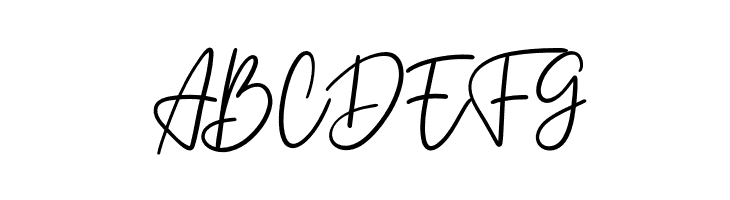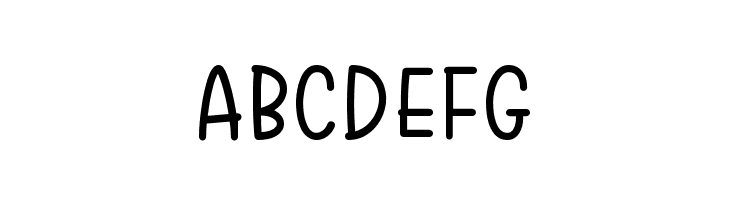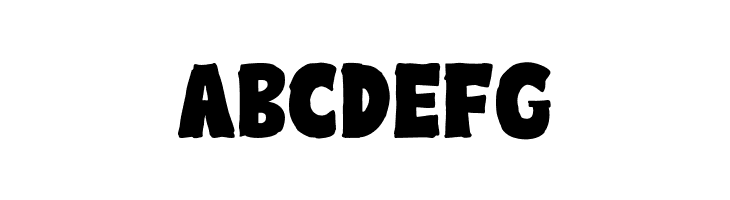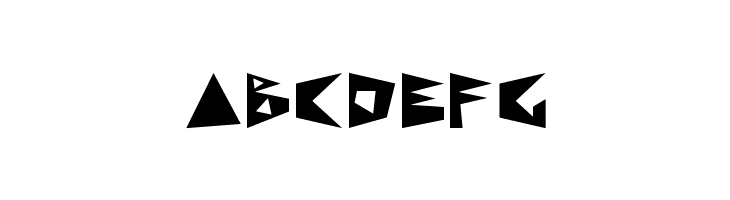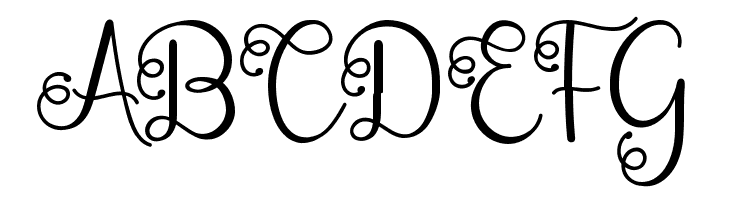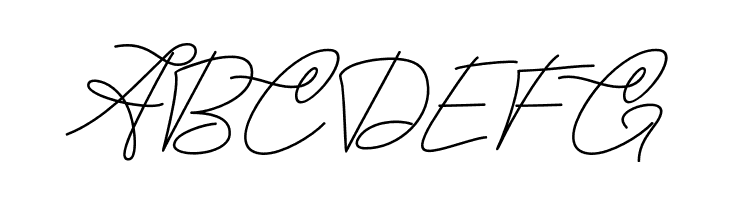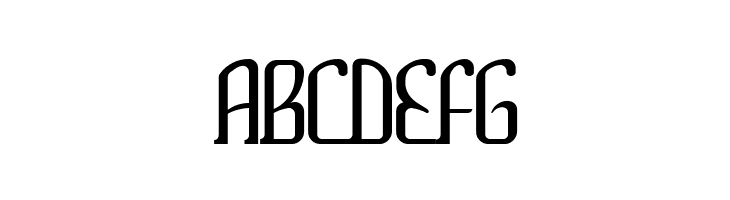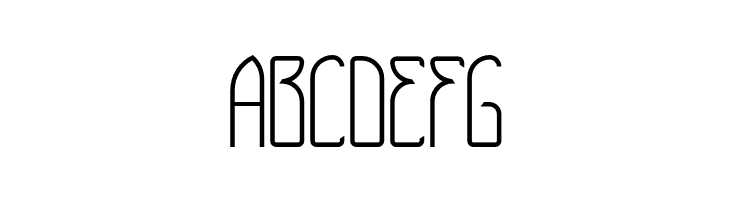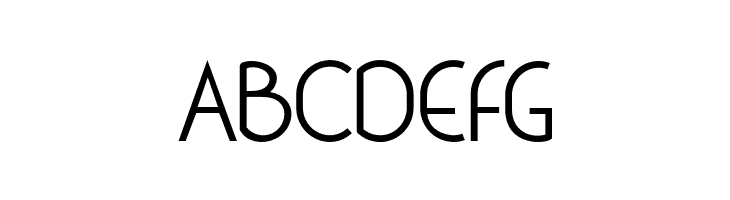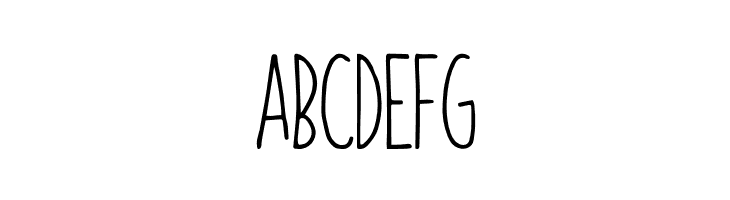
An elegant and flowing script font with decorative swirls and loops.
A whimsical and elegant script font with decorative swirls and loops.
A playful, bold font with rounded, hand-drawn strokes.
A cursive, handwritten-style font with elegant, flowing strokes.
An elegant, flowing script font with a refined, handwritten style.
A modern, geometric font with a consistent stroke width and slightly condensed style.
A playful handwritten font with rounded, informal letterforms.
A flowing, cursive script font with connected letters and moderate stroke thickness.
A modern, geometric font with elongated, narrow characters and rounded edges.
A bold, angular font with a dynamic and edgy geometric design.
A modern, decorative font with flowing curves and sharp edges, perfect for artistic projects.
A modern, geometric font with clean lines and a sleek appearance.
A flowing, cursive font with elegant loops and a handwritten style.
A playful, bold font with rounded, hand-drawn characters.
A playful, hand-drawn font with tall, narrow letters and a whimsical style.
A bold, playful font with a rugged, hand-drawn appearance.